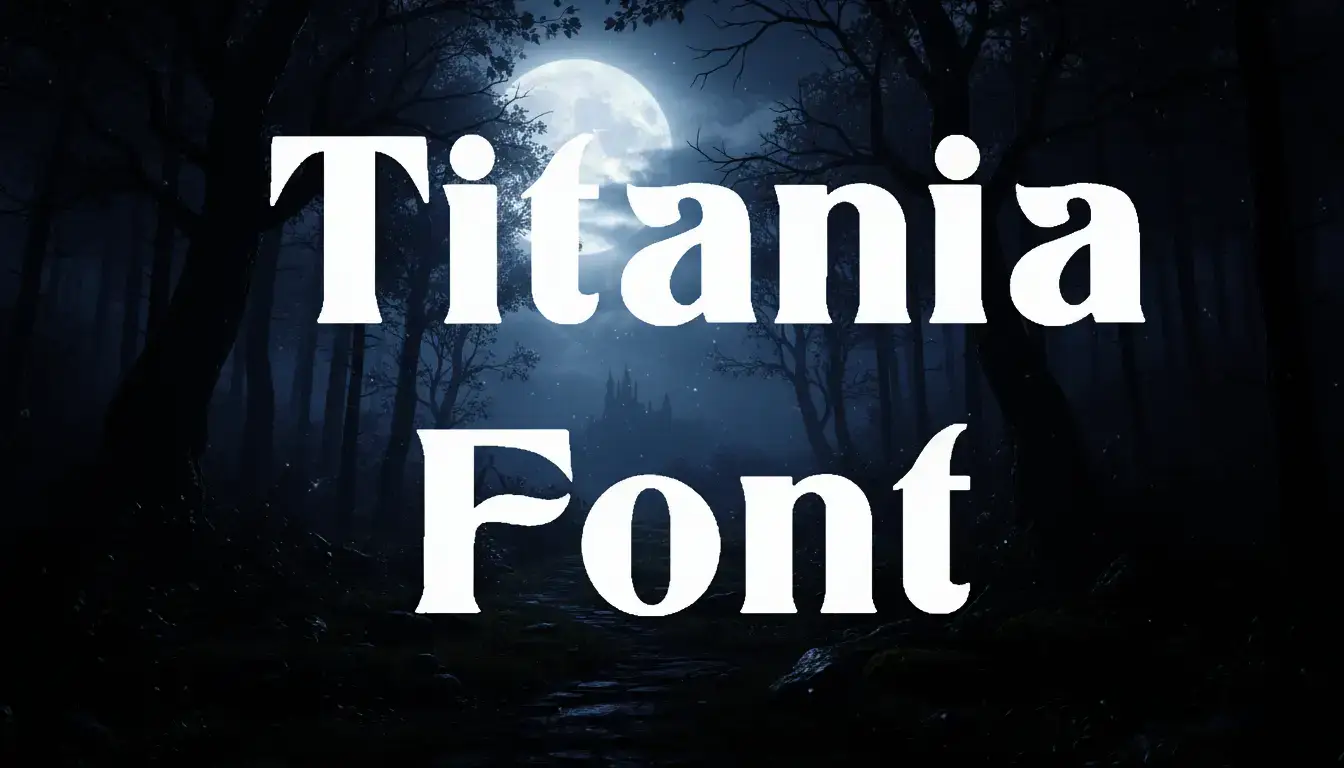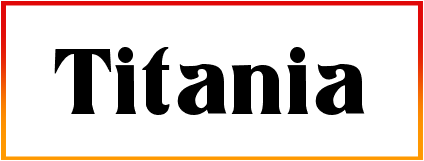
Titania Font
Titania Font Preview
Titania
Titania is a fancy font. Bold and full of character, it's built to stand out rather than blend in. You can download it for free and test it with your own words in the preview above.
What You Can Type With Titania
With complete upper and lowercase letters and all ten digits, Titania is ready for real wording, not just a single headline. Common punctuation such as &, !, ? and @ is included as well. It also has the accented letters you need for Spanish, French, German, Portuguese and Italian.
Where Titania Works Best
Titania is a natural fit for posters, logos and eye-catching headlines. Use it for one standout word or headline and let simpler fonts handle the rest.
Does Titania support accented letters?
Yes. Titania includes the accented letters needed for Spanish, French, German, Portuguese and Italian, so it works for more than just English.